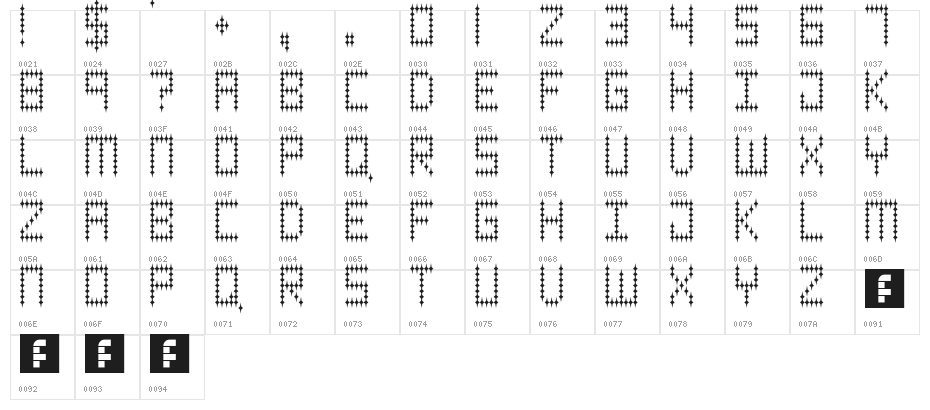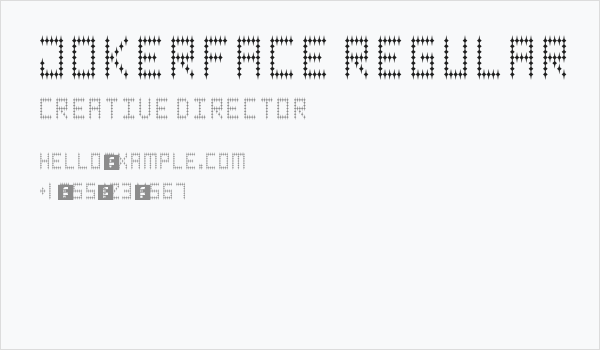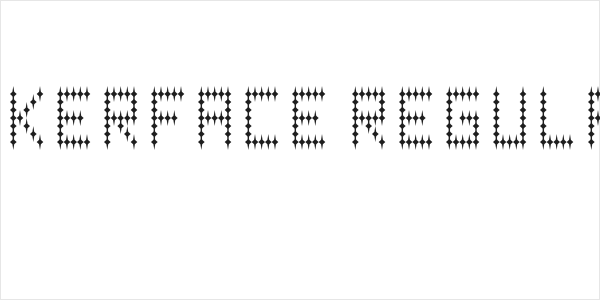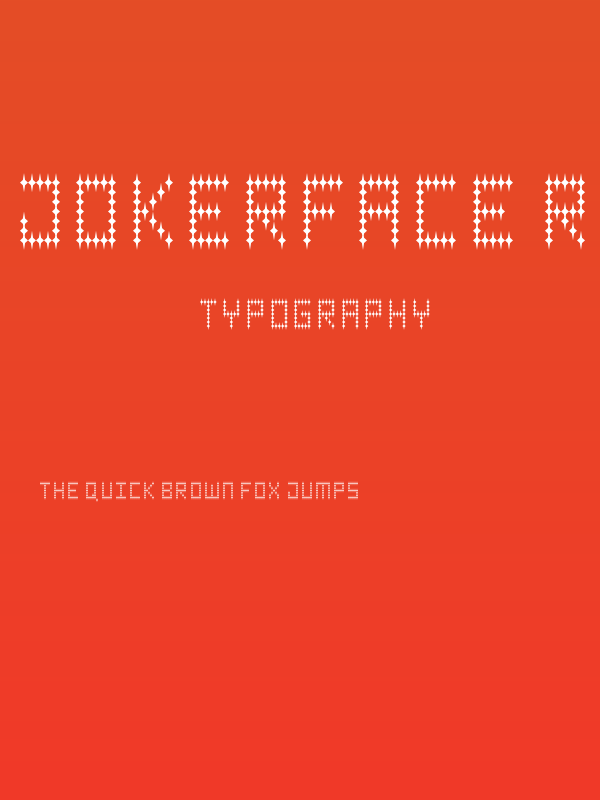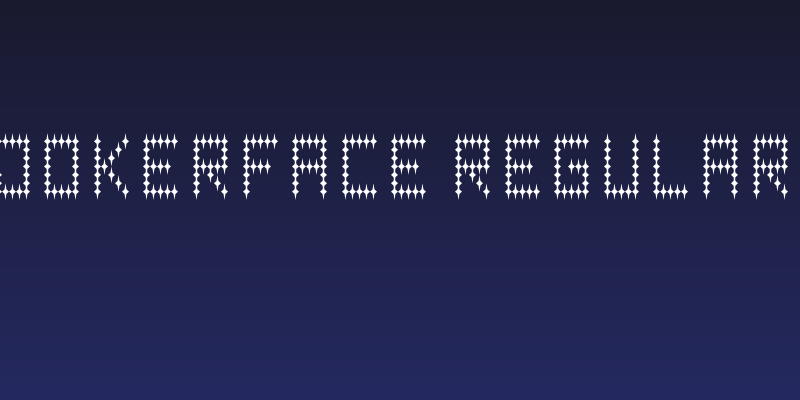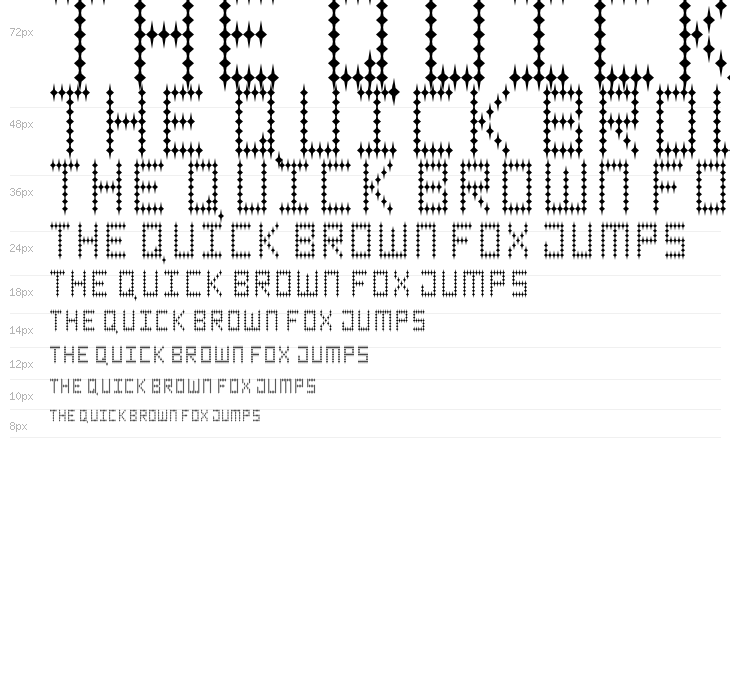
Jokerface Regular Font
Jokerface Regular Description
This font features a unique and playful design, characterized by its star-like, pointed embellishments on each character. The letters are bold and geometric, with a consistent pattern that gives them a decorative and eye-catching appearance. The uppercase and lowercase letters maintain a uniform style, while the numbers and special characters follow the same distinctive pattern. This font's design is reminiscent of a festive or whimsical theme, making it suitable for creative and unconventional projects.
| Proposed Projects | Ideal for party invitations, festive banners, children's book covers, and creative branding projects. |